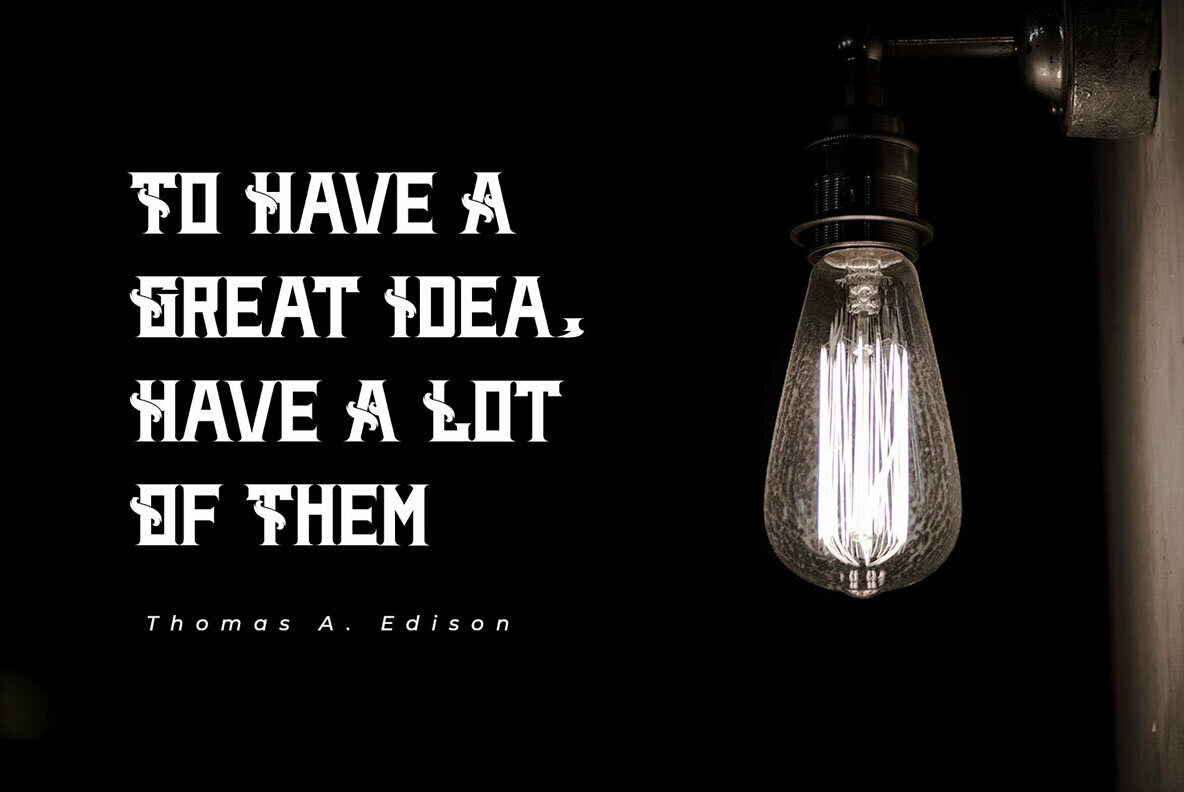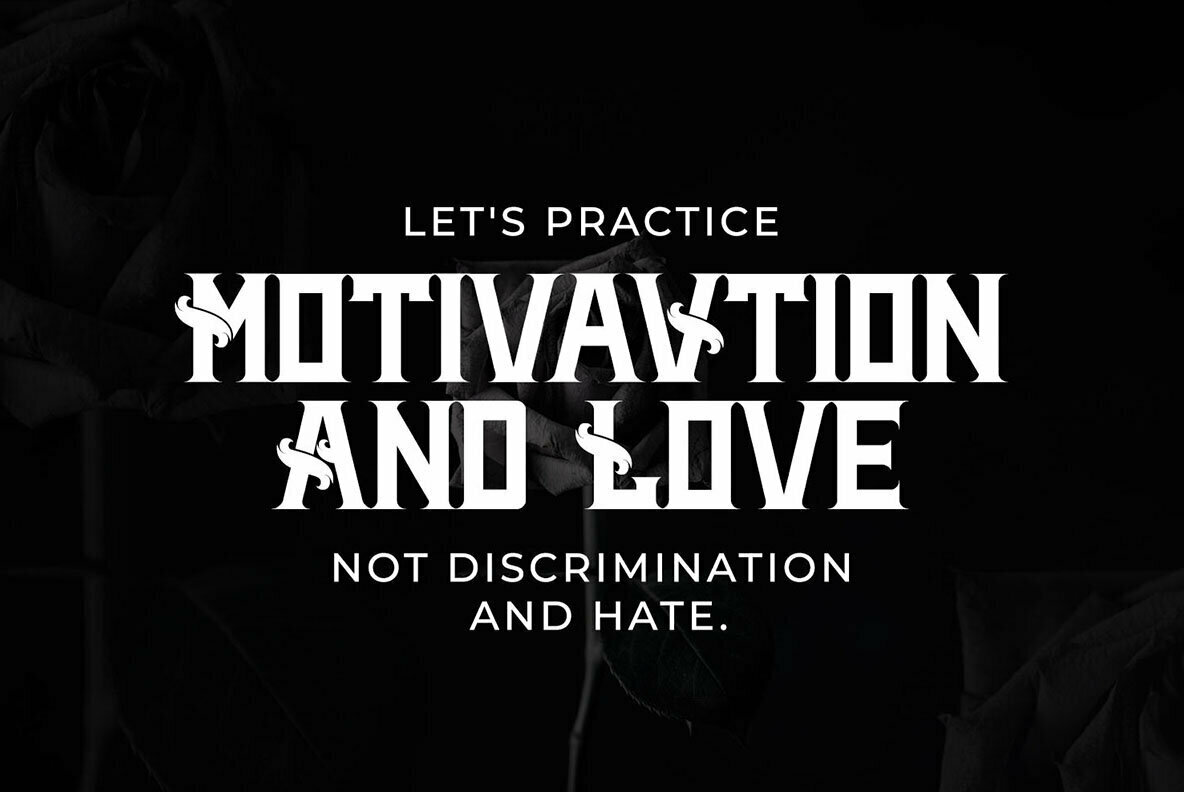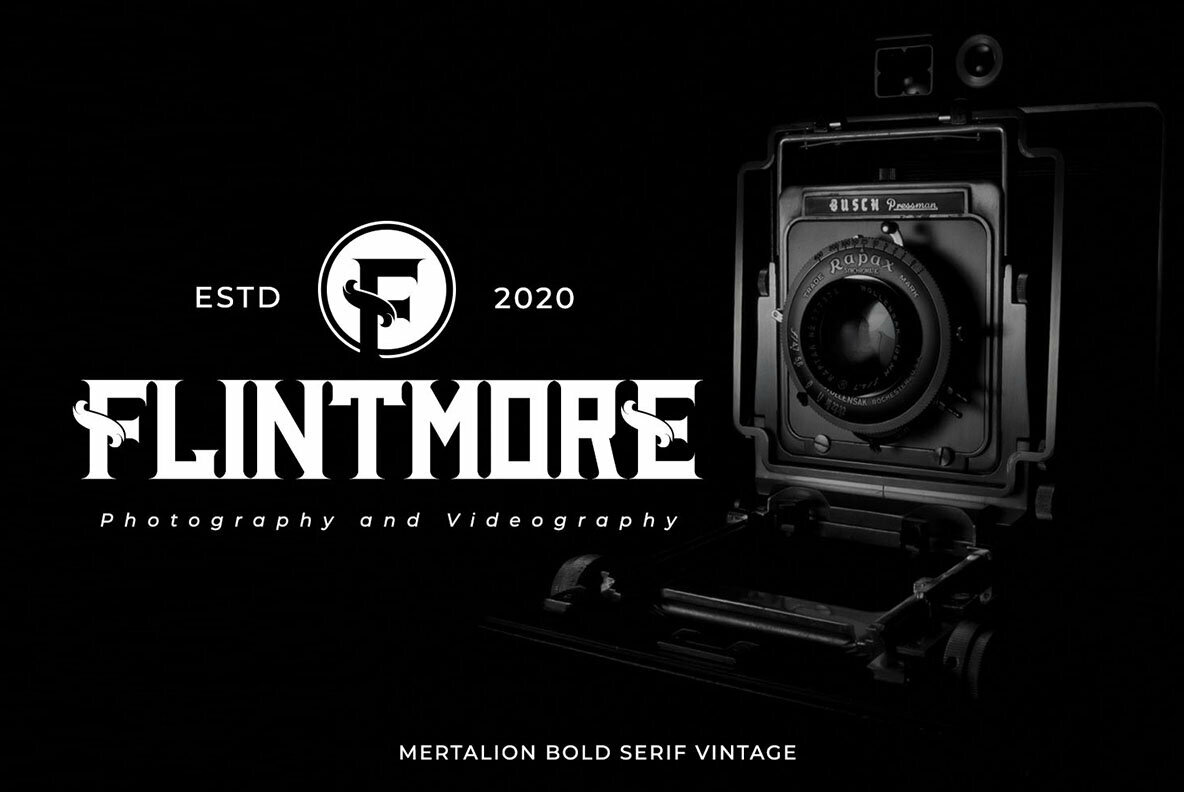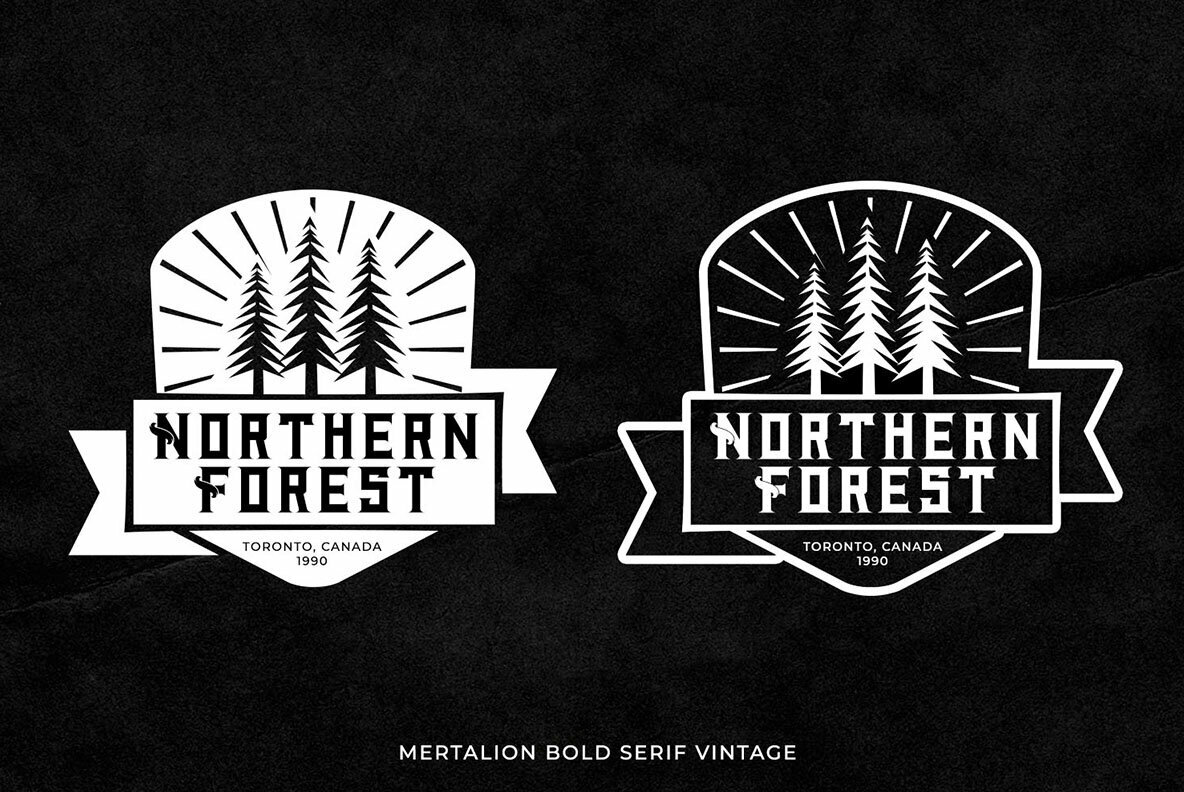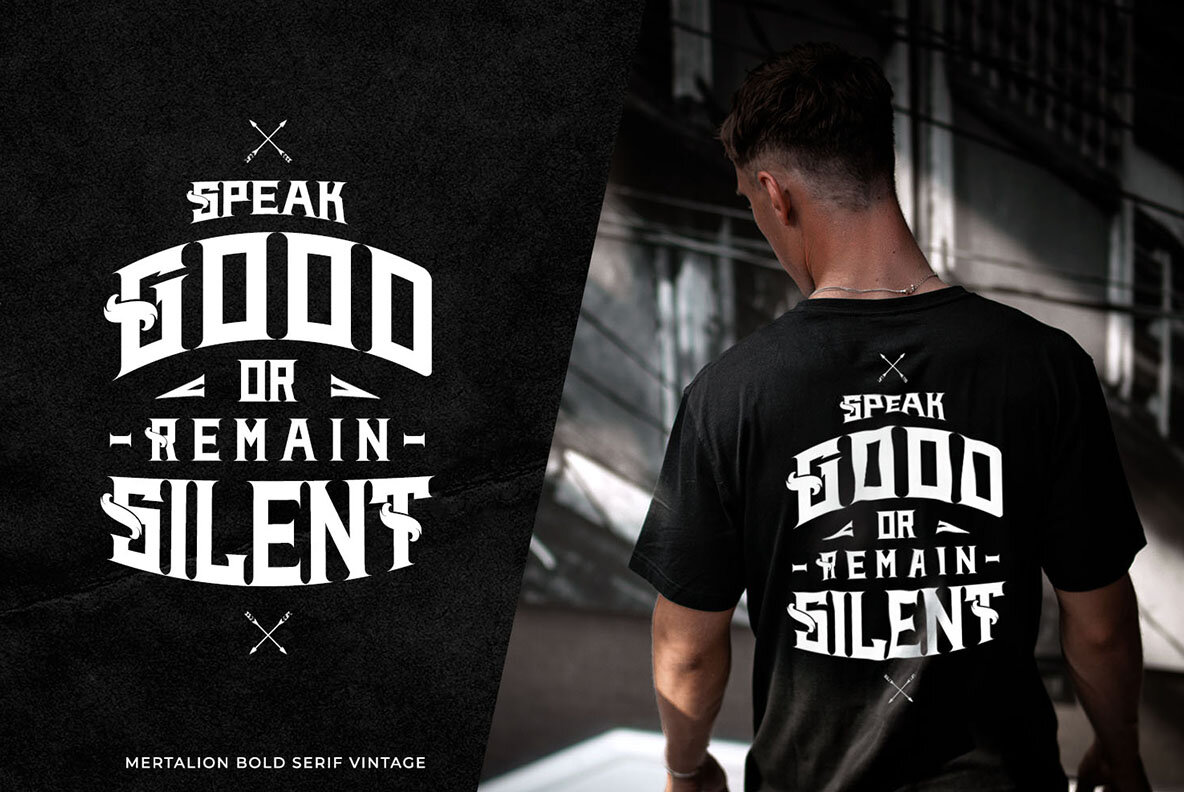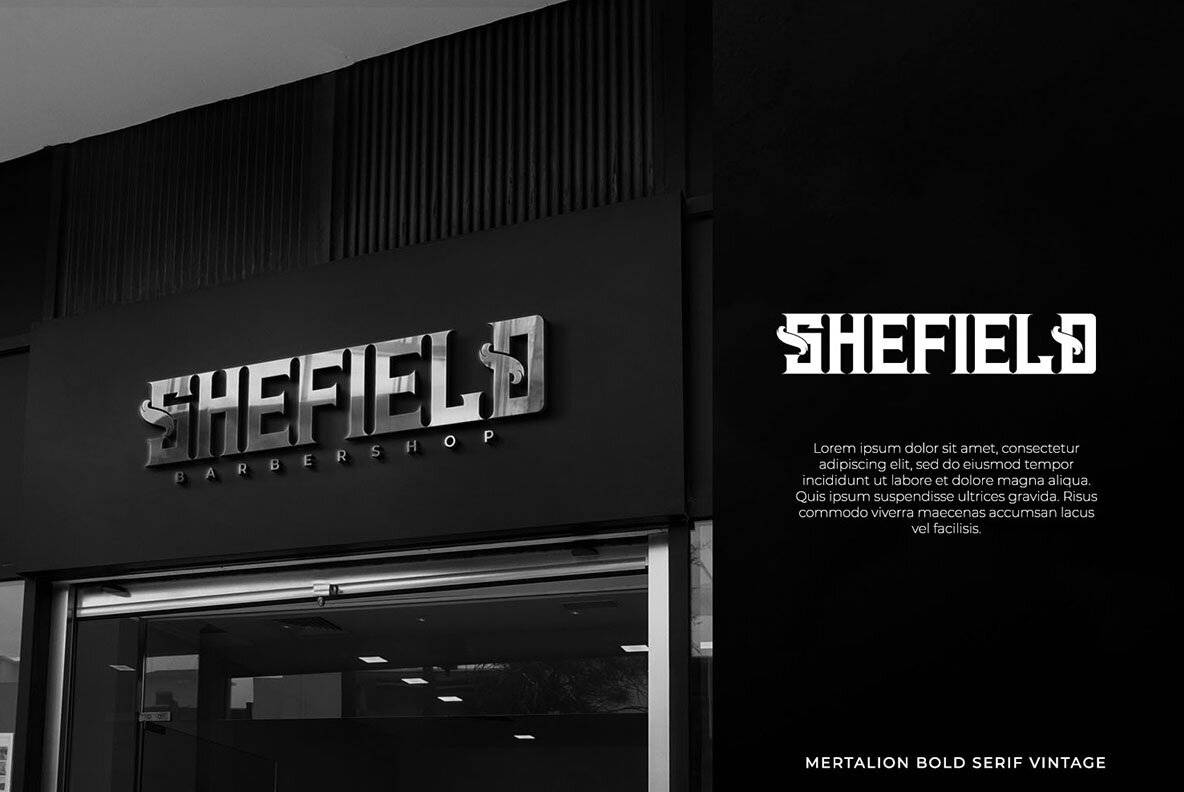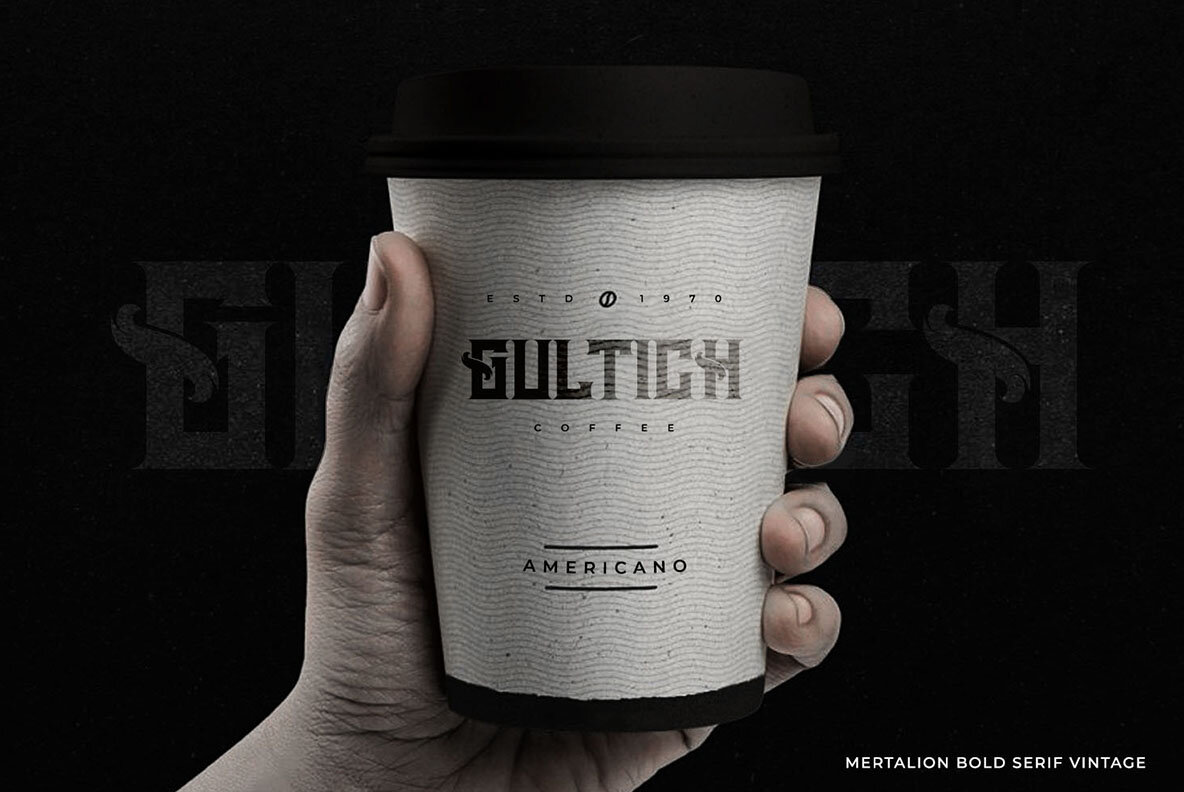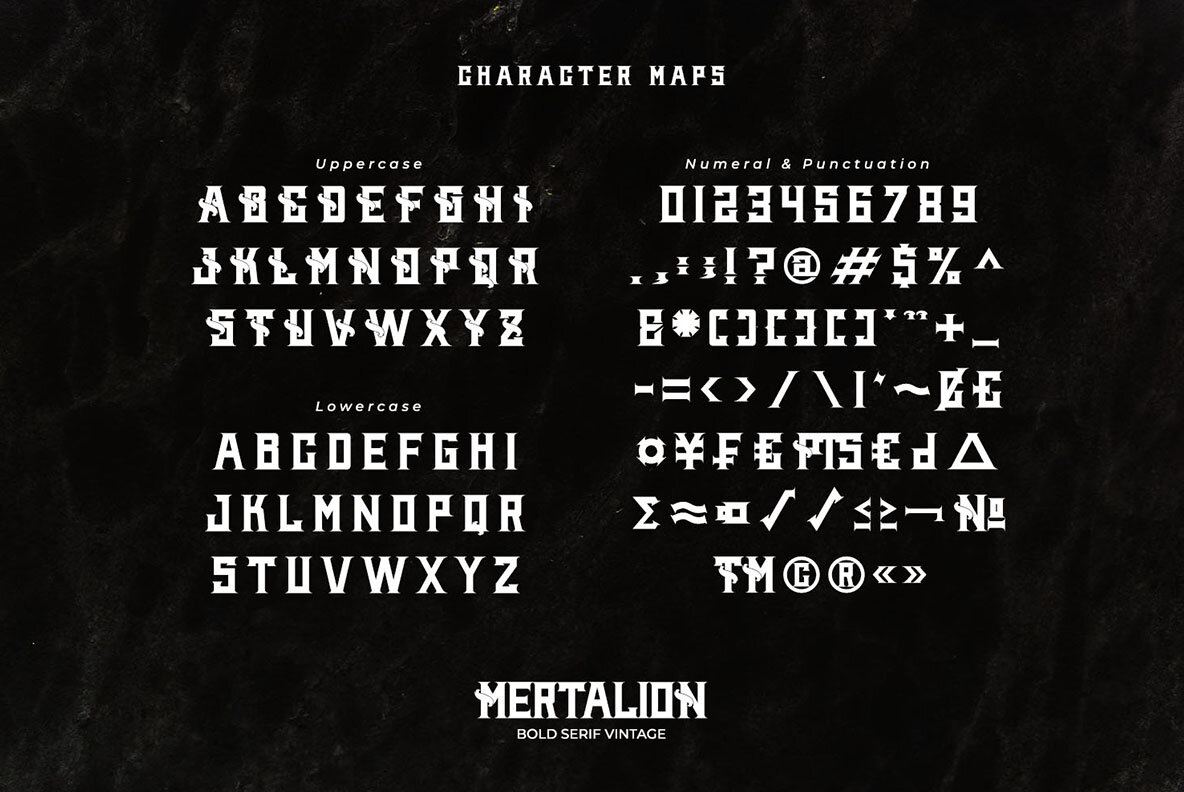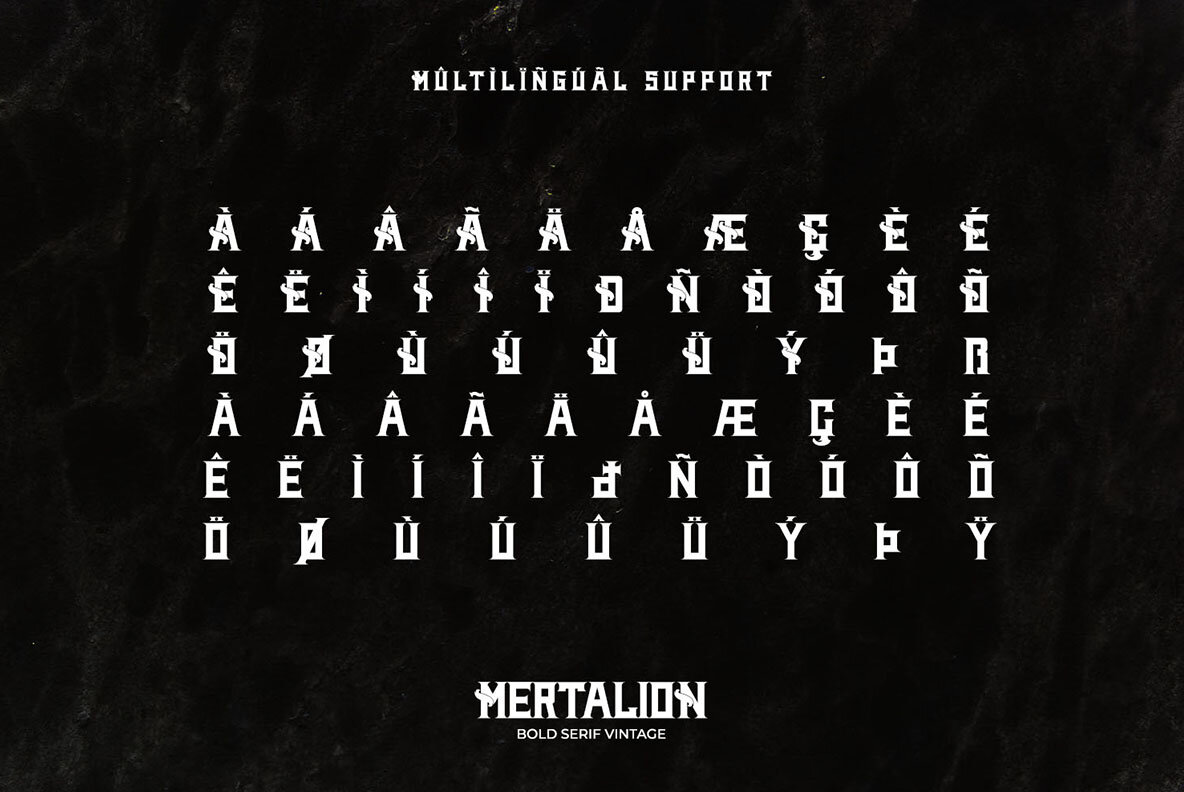
Mertalion Font
Mertalion
Mertalion, crafted with inspiration from classic logotypes, is a vintage serif font perfect for designers seeking to accentuate their projects with a hint of nostalgia. This font brings a refined touch to branding, logotypes, quotes, and t-shirt prints, making it an ideal choice for those who appreciate the allure of vintage aesthetics.Mertalion: A Stylish Vintage Serif